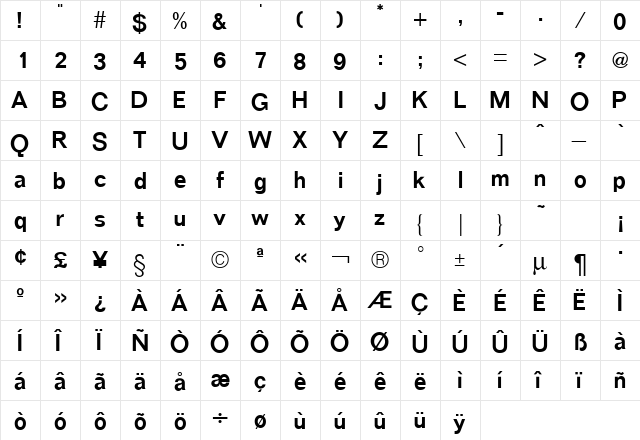
Folio ICG Regular Font Preview
Folio ICG Regular
Design Context for Folio ICG Typeface
Folio ICG is a composed and adaptable typeface that performs quietly and consistently across a wide range of design contexts.